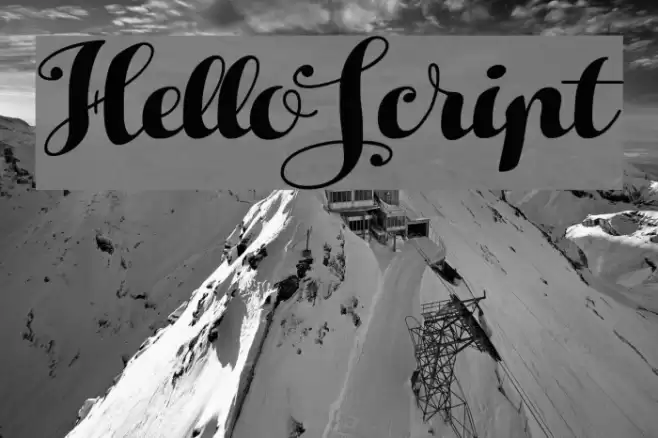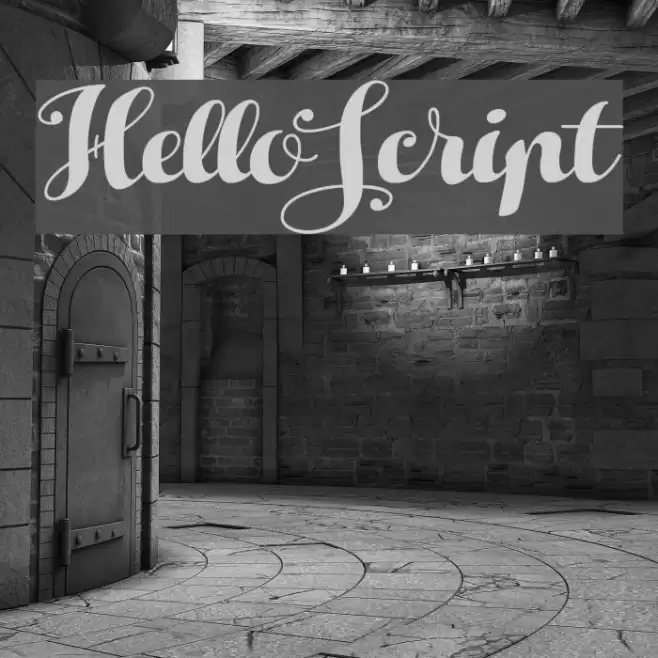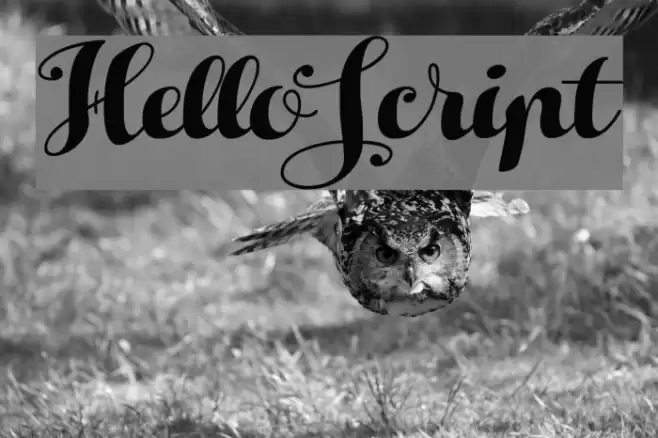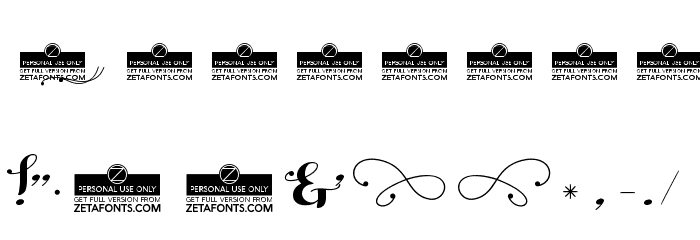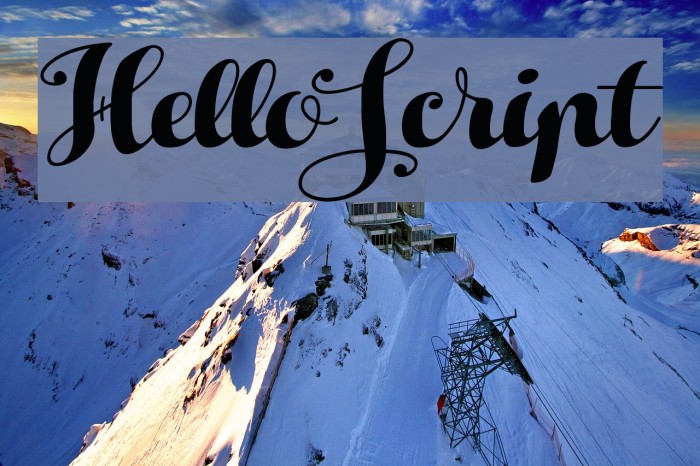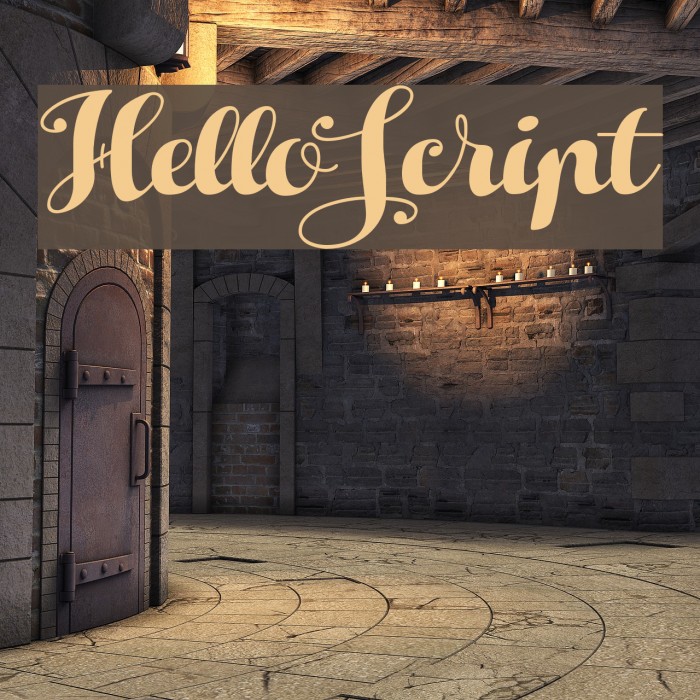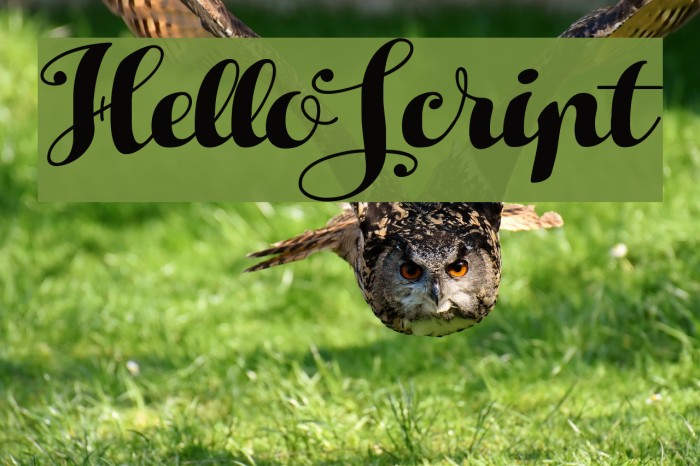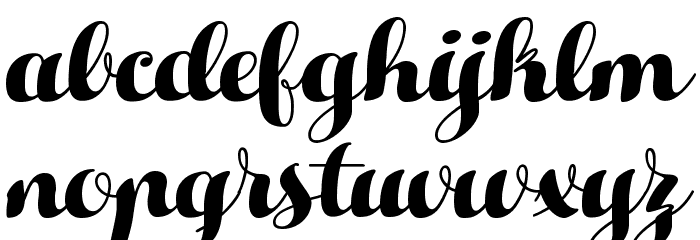
HelloScript Font
HelloScript Description
This font is a beautifully crafted script typeface that exudes elegance and sophistication. The uppercase letters are adorned with intricate swashes and flourishes, giving them a decorative and ornate appearance. The lowercase letters maintain a smooth and flowing style, enhancing readability while retaining a touch of flair. The numerals and special characters are designed to complement the overall aesthetic, featuring similar curves and embellishments. This font is perfect for projects that require a touch of elegance and creativity, such as wedding invitations, branding, and high-end product packaging.
An elegant and decorative script font with ornate swashes from Uncategorized fonts.